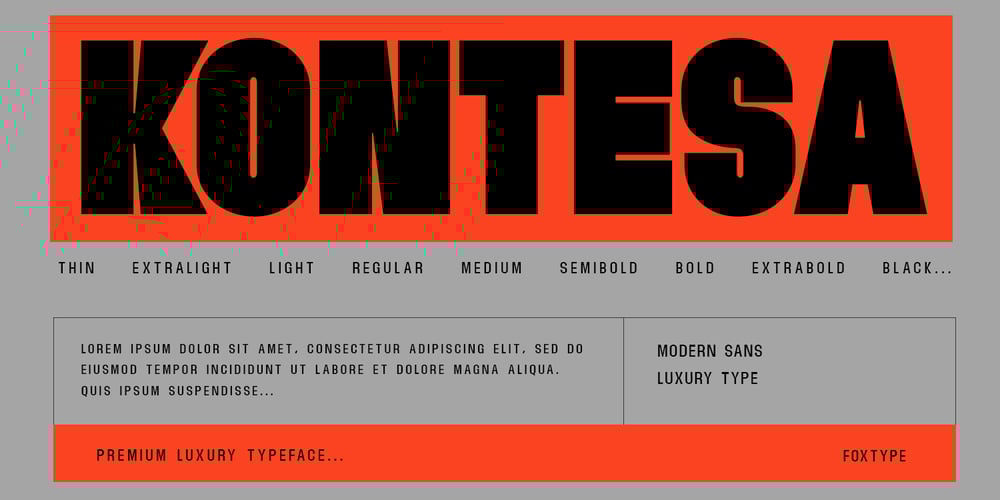
Kontesa Font Family was designed by Evin Tony and published by FoxType. Kontesa contains 9 styles and family package options. Kontesa Display is a Brand New Elegant Typeface with a powerful font family. It has a dependable and uncompromising style, with controlled letterforms and modern touches. It looks amazing in logos, magazines, and movies . Kontesa Font would be perfect for branding, headlines, Captions, paragraph, and posters . The various weights allow you to experiment with a wide range of applications. It’s created to make an impression without sacrificing its beauty and readability. It’s shown a clean, minimalist, warmth, quirky, yet still purposed to be versatileThe Typeface includes Nine Weights – Thin, ExtraLight, Light, Regular, Medium, SemiBold, Bold, ExtraBold, & Black. All offer wide language support Uppercase Only numerals and extended punctuation. Thank you for taking the time to look into the font.